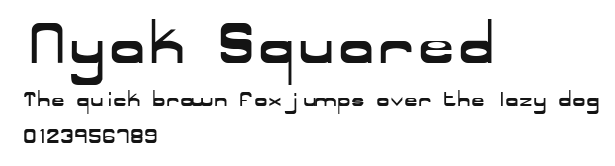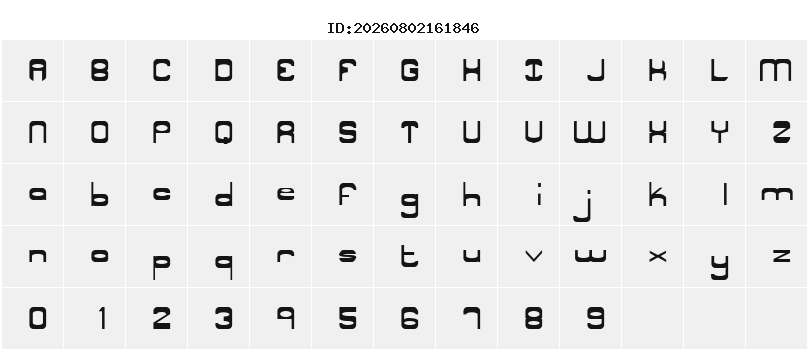
• Font Name: Nyak Squared
• Full Font Name: Nyak Squared 1
Nyak Squared.ttf is a modern, elegant sans-serif font designed for ultimate readability and visual harmony. Perfect for branding, headlines, web design, and print materials.